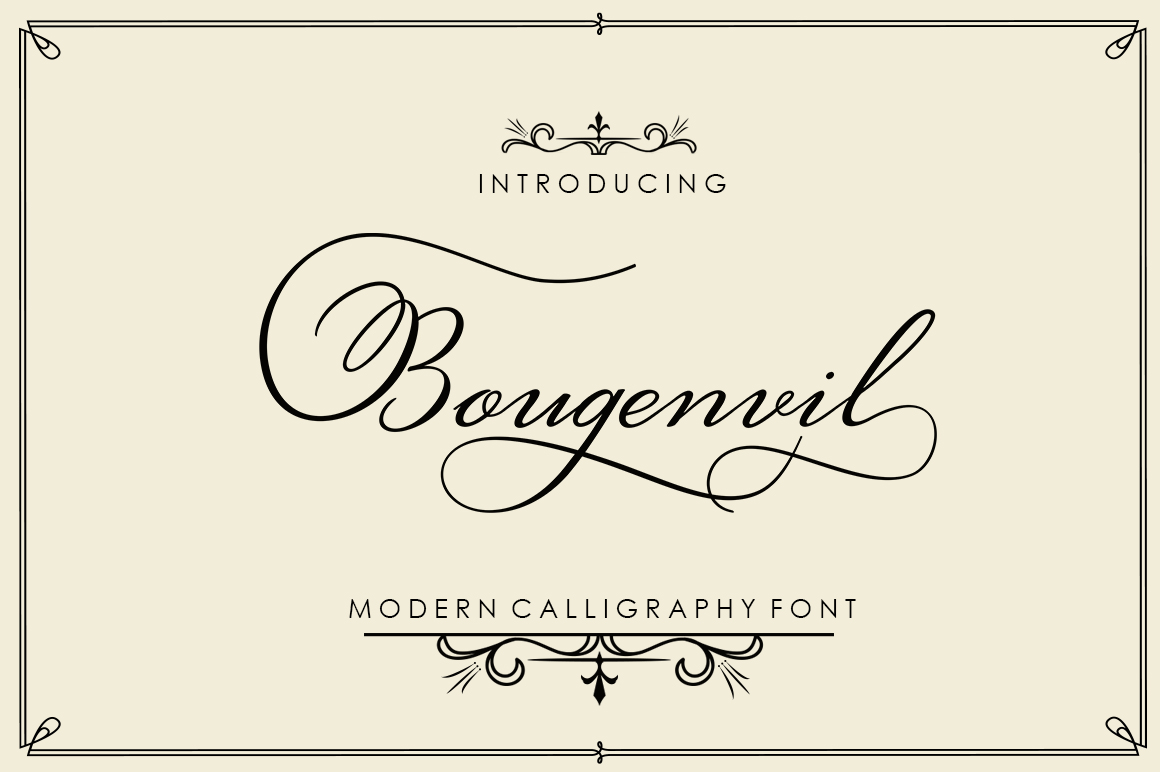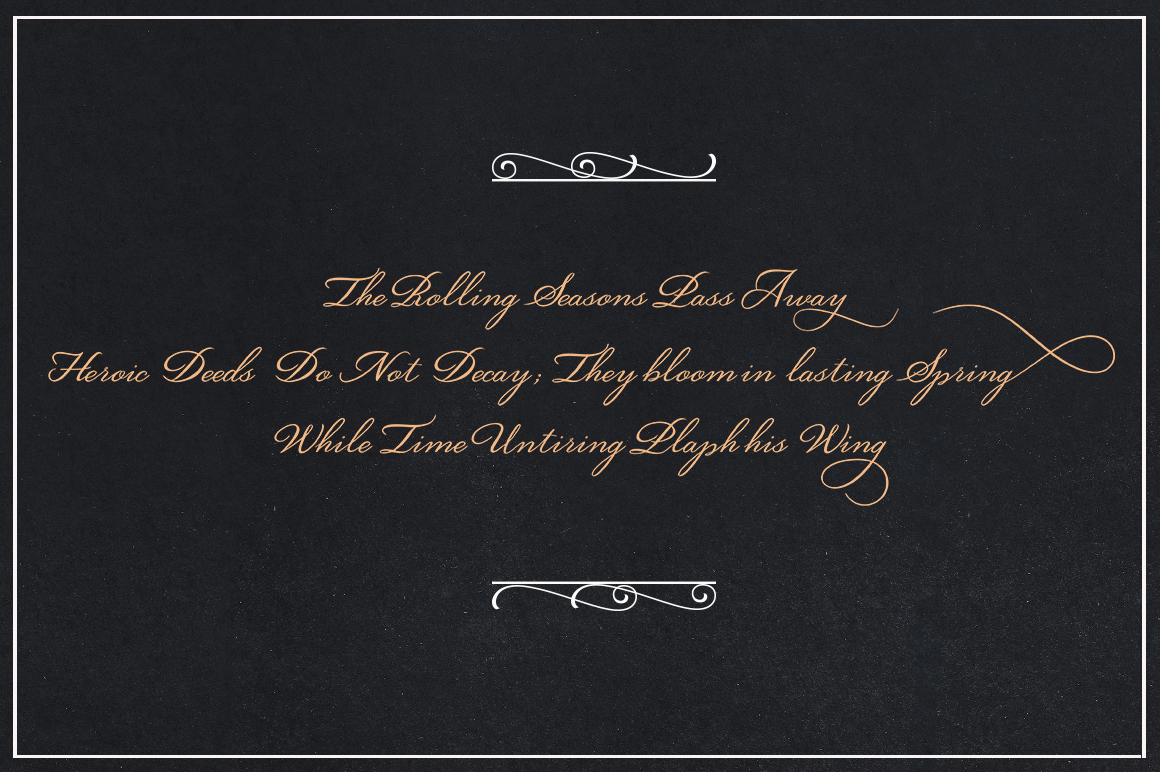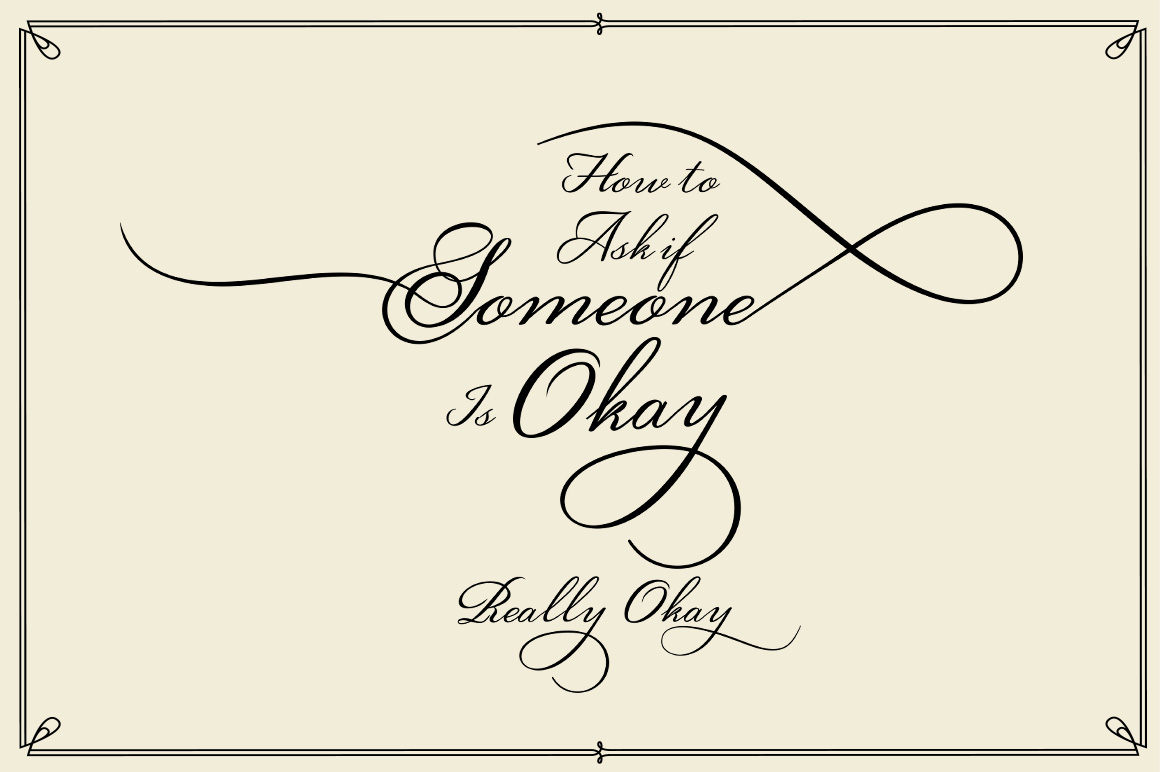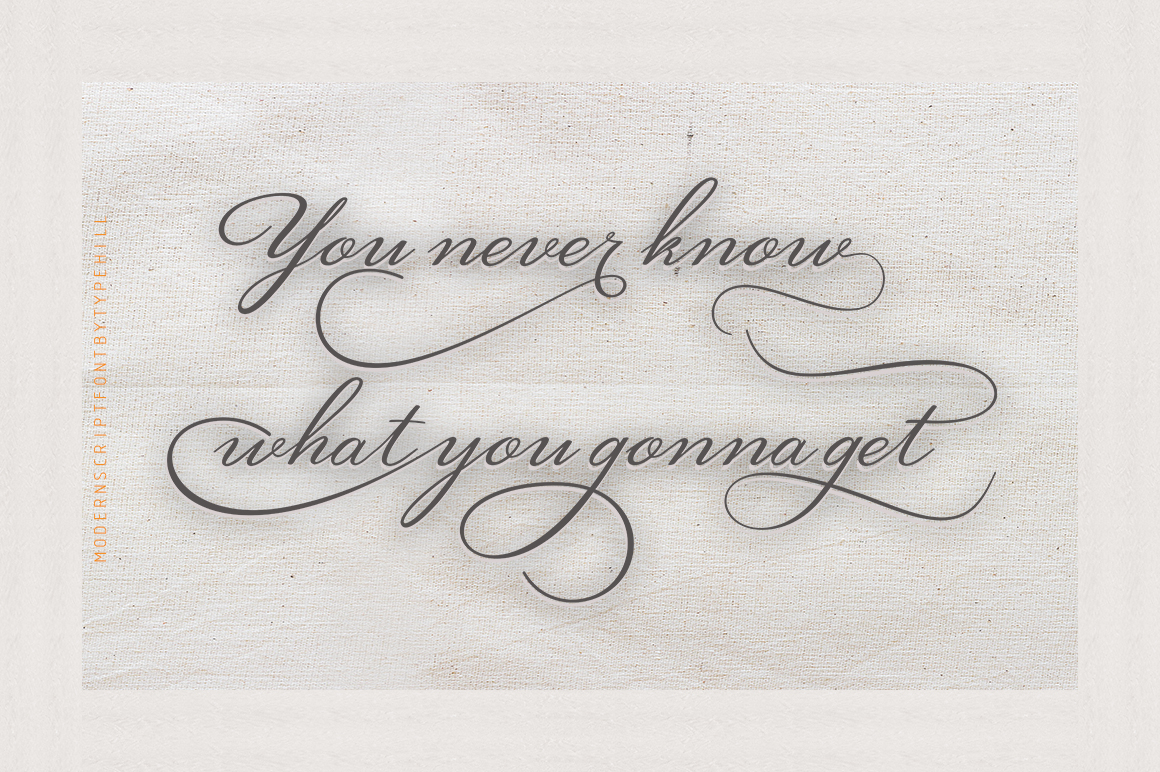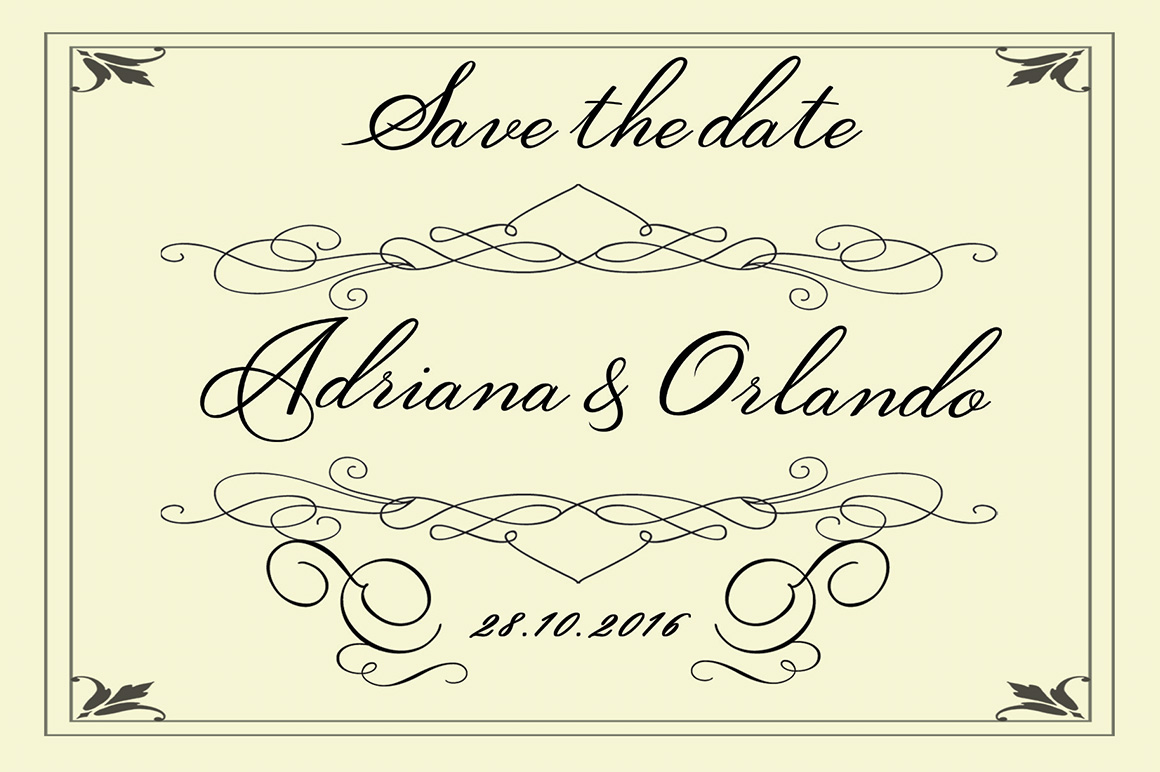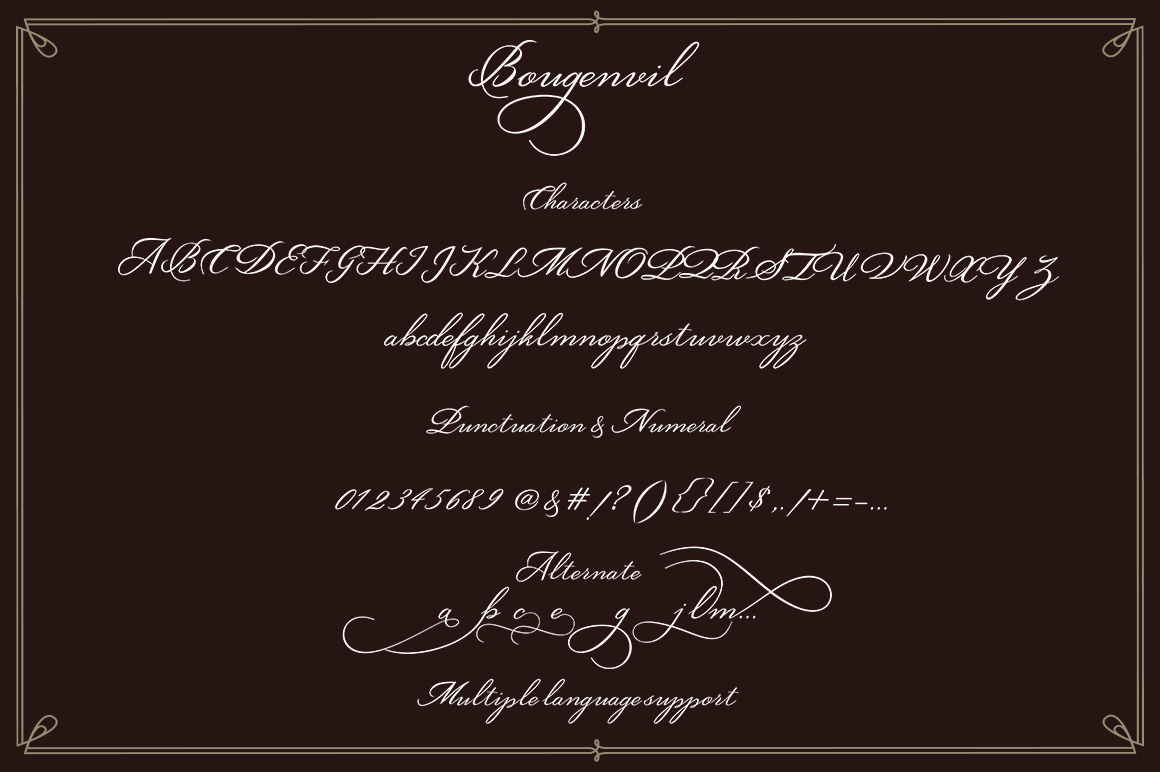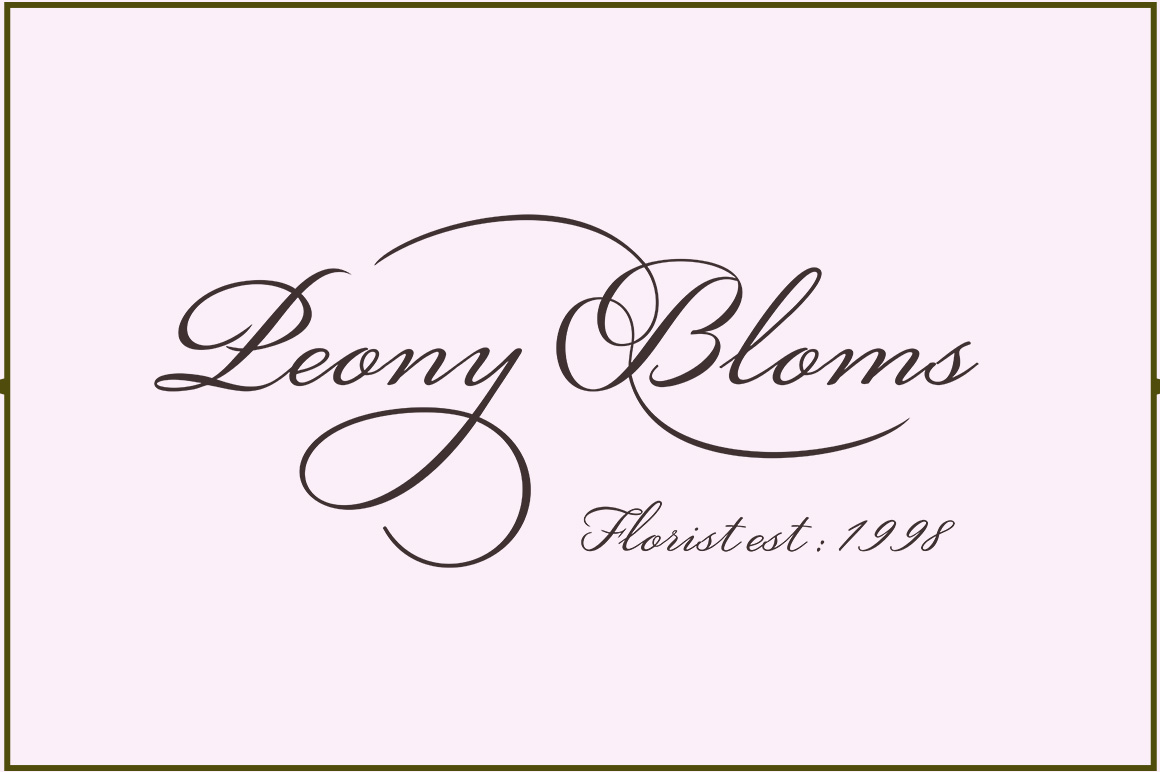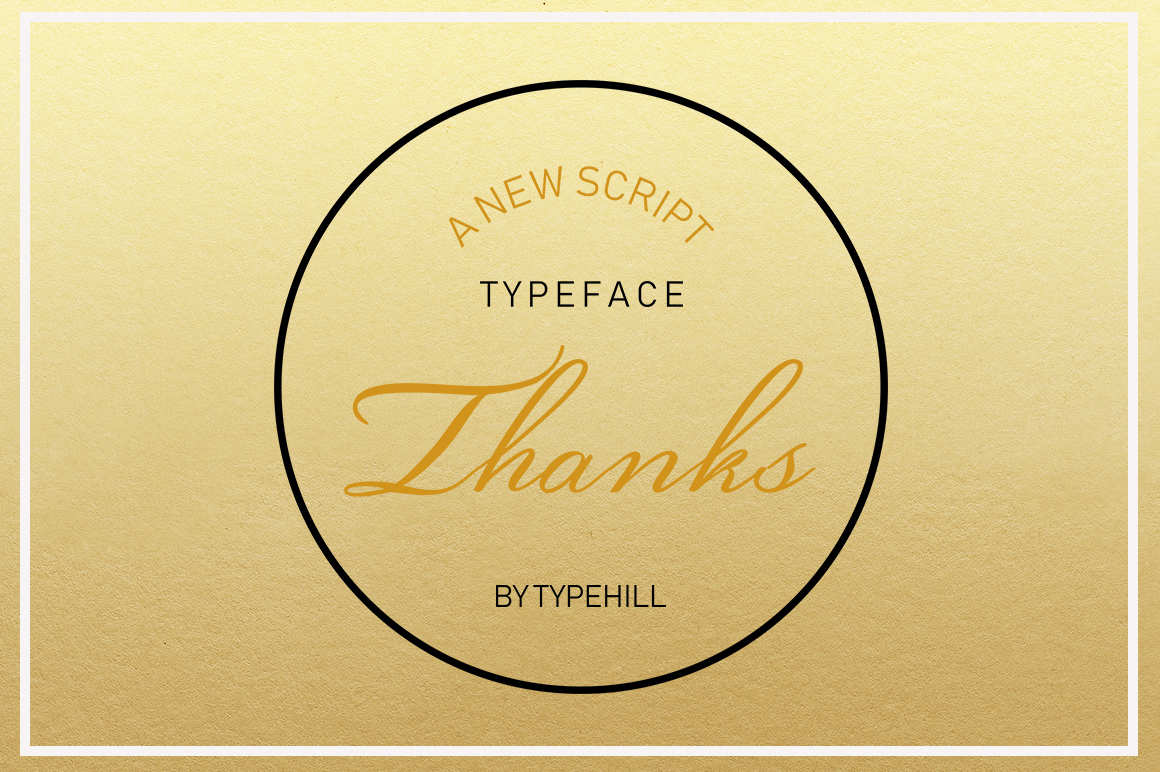
Bougenvil Font
About Bougenvil Font
Bougenvil is a calligraphy script font that comes with beautiful alternative characters. Bougenvil is a mixture of copper calligraphy with handlettering style. Designed to bring style elegance, Bougenvil a feminine, sensual, glamorous, simple and very readable typeface.